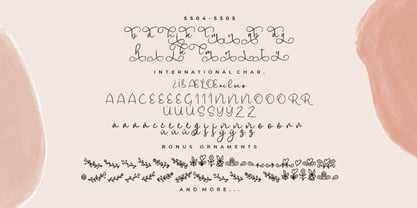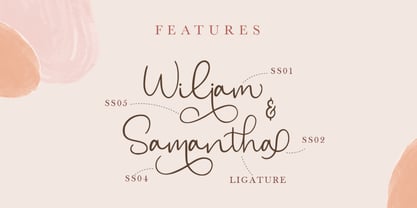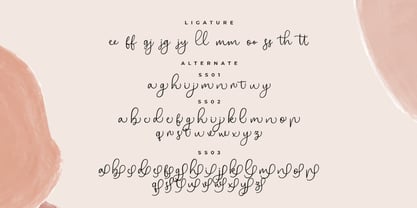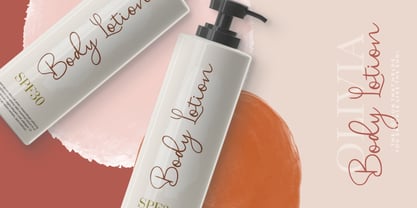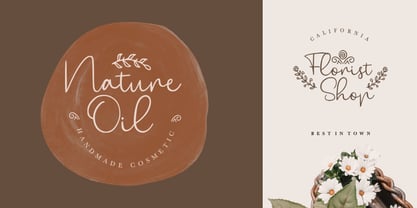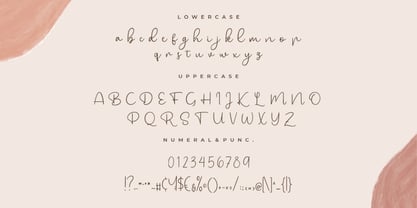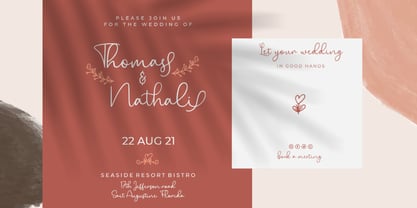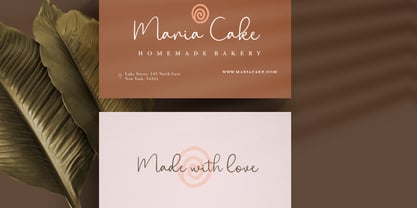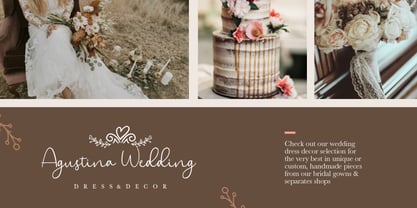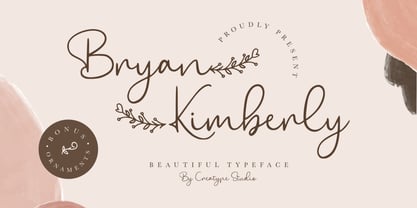
Bryan Kimberly
by Creatype Studio
The Bryan Kimberly Font Family was designed by Rian Rahardi and published by Creatype Studio. Bryan Kimberly contains 2 styles and family package options. More about this family
Bryan Kimberly is a modern calligraphy script font with smooth, elegant curves and natural handwritten strokes. It radiates romantic and cozy vibes, perfect for those who want to add a touch of warmth and sophistication to their designs. Ideal for wedding branding, organic product packaging, Instagram content creators, handcrafted business logos, and boutique store promotions looking for a soft yet professional aesthetic.
Designers: Rian Rahardi
Foundry: Creatype Studio